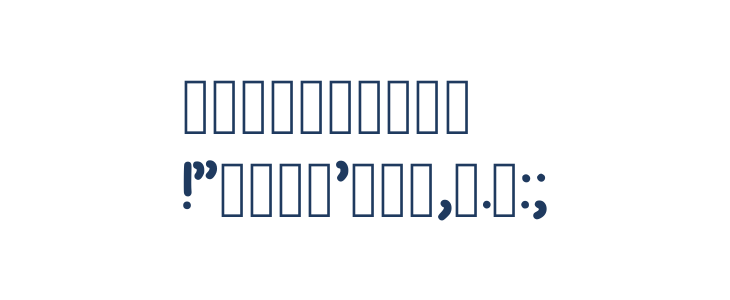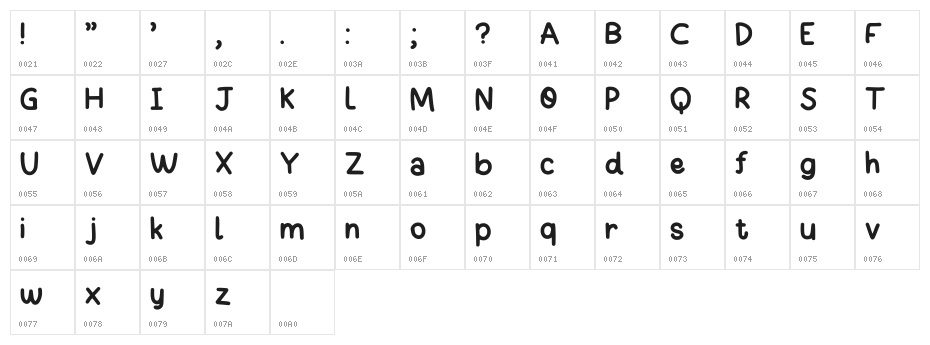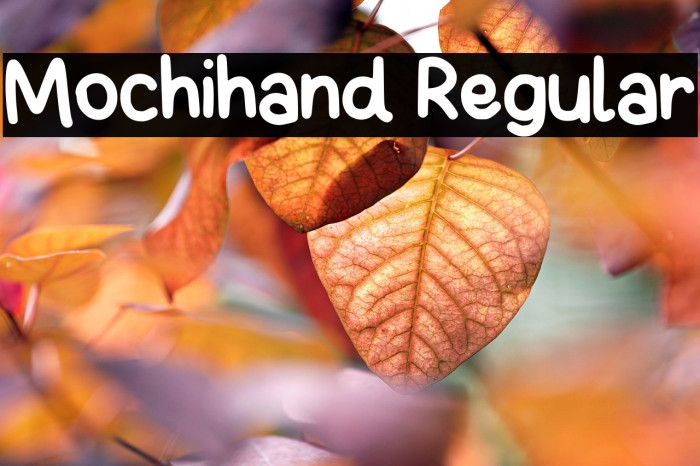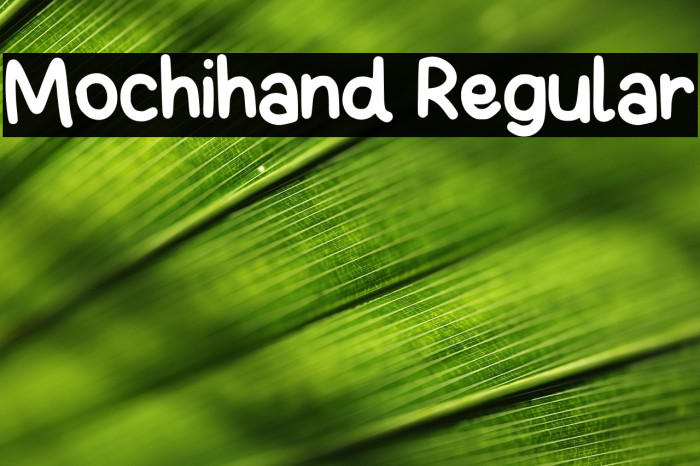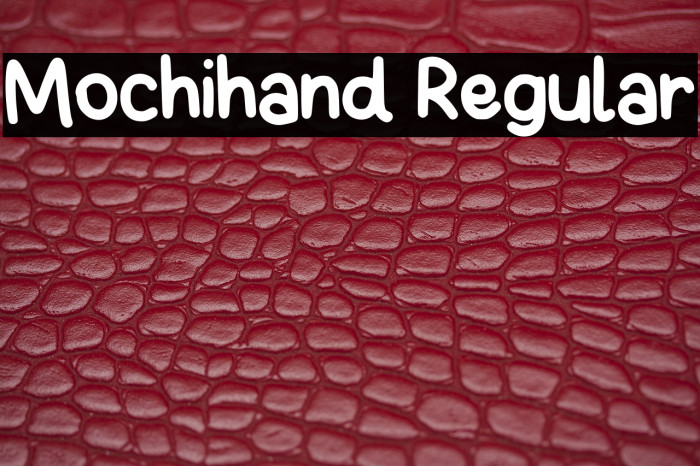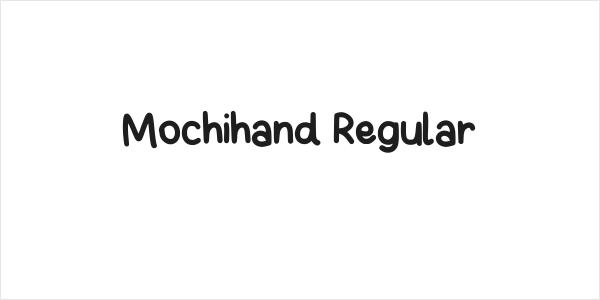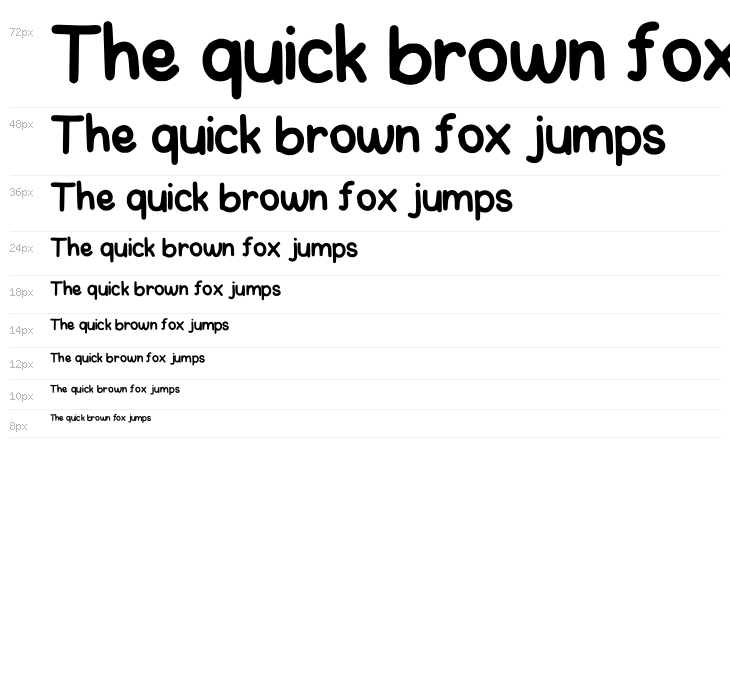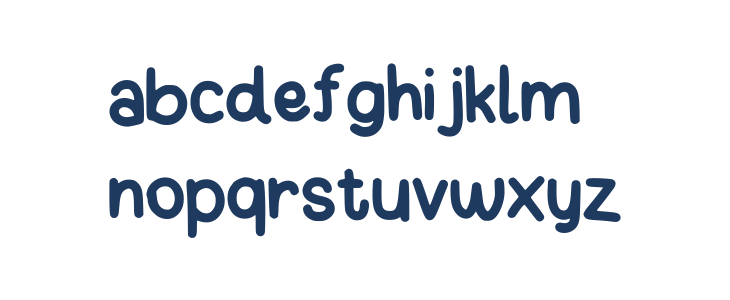
Mochihand Regular Font
Mochihand Regular Description
This playful and rounded font exudes a friendly and approachable vibe, making it ideal for casual and informal settings. The characters are bold and slightly condensed, with smooth curves and a consistent stroke width that adds to its readability. The font maintains a uniform appearance across both uppercase and lowercase letters, with a slight whimsical touch that is evident in the rounded terminals and gentle curves. It is well-suited for projects that require a touch of personality and warmth, such as children's books, playful branding, or creative posters. The font's simplicity and clarity make it versatile for various design applications.
| Use Case | Headlines, Logos, Informal text. |
| Proposed Projects | Children's books, playful branding, creative posters, informal invitations. |